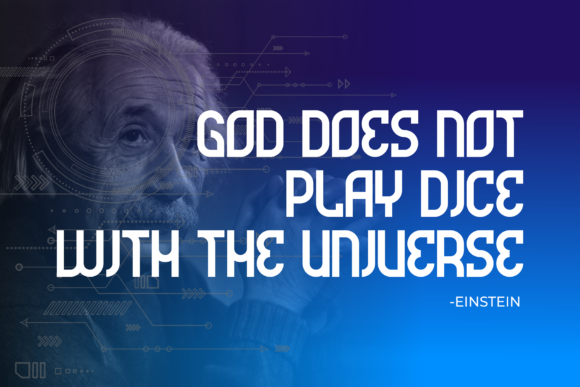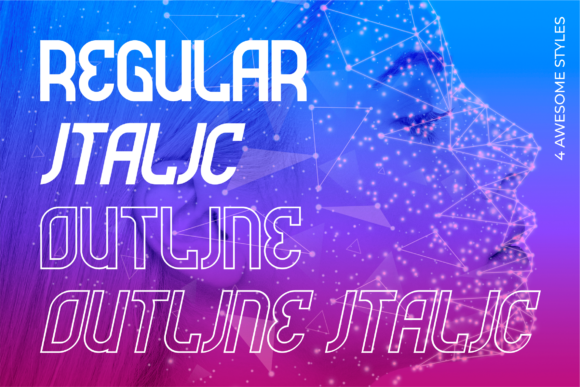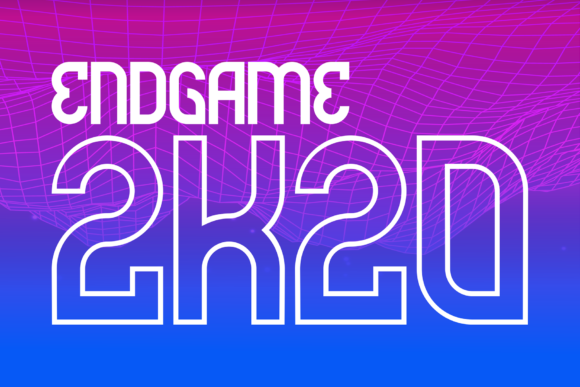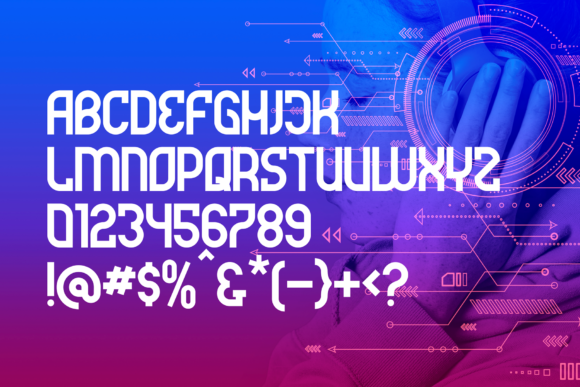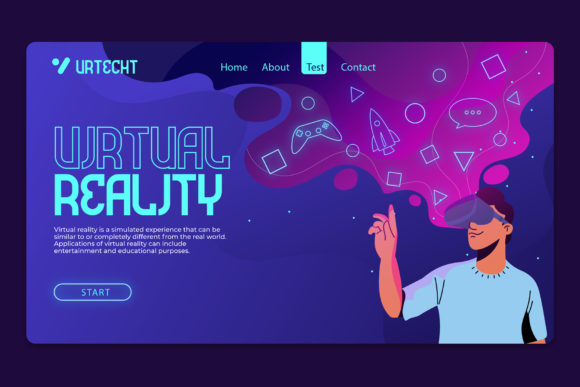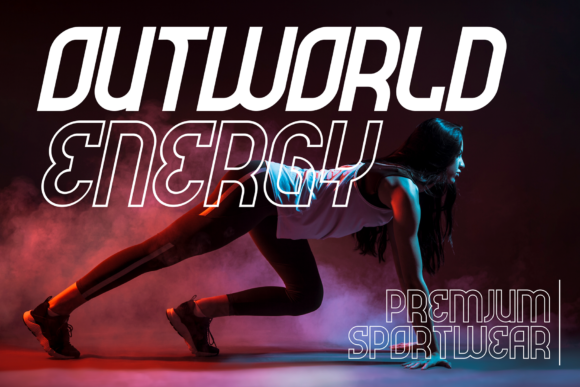
The Futuristic Charm of Futrons Font
Have you ever been in the middle of a design project, and suddenly, you’re stuck on finding the perfect font? I recall a recent experience where I was working on a movie poster design, and my client requested a font that was both futuristic and minimal. After hours of searching, I stumbled upon Futrons Font, and it instantly became my go-to choice. In this article, we’ll dive into the world of Futrons Font, exploring its features, uses, and some helpful tips for incorporating it into your designs.
A Personal Review of Futrons Font
Futrons Font has quickly become a favorite in my design arsenal, and here’s why:
- ✨ Unique and eye-catching design: Futrons boasts a futuristic and minimal look that’s perfect for making a statement.
- ✅ Versatility: This font is ideal for various design projects, including movie posters, flyers, social media posts, and more.
- 💻 Easy to read: Despite its futuristic look, Futrons remains clear and legible, even at smaller font sizes.
While Futrons Font is an excellent choice, there are a few minor considerations to keep in mind:
- 🤔 Limited serif options: As a display font, Futrons is designed primarily for headlines and titles. It may not be the best choice for body text or longer paragraphs.
- ⚠️ Glyph limitations: While Futrons has a range of glyphs and stylistic alternates, it may not have the extensive character set you’re looking for.
The Backstory of Futrons Font
Futrons Font was designed with the goal of creating a unique and futuristic display font. Inspired by science fiction and space exploration, the designer aimed to craft a font that would evoke a sense of otherworldliness and innovation. The result is a font that’s both modern and timeless, perfect for designers looking to add a touch of futurism to their work.
| Font Name | Futrons Font |
| Author | figuree studio |
| What is Futrons Font best used for? | Futrons Font is ideal for display purposes, such as movie posters, flyers, social media posts, and titles. |
| Is Futrons Font suitable for body text? | While Futrons Font is legible, it’s primarily designed for headlines and titles. For longer paragraphs, consider using a font with more traditional proportions. |
| Does Futrons Font have any special features? | Yes, Futrons Font features a range of glyphs and stylistic alternates, allowing for added visual interest and customization. |